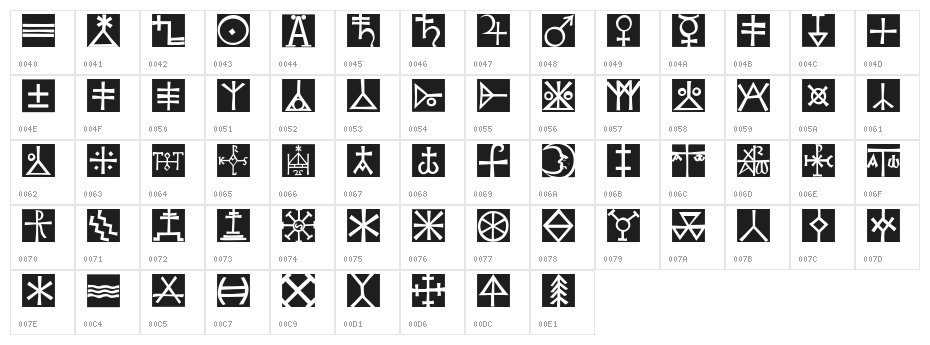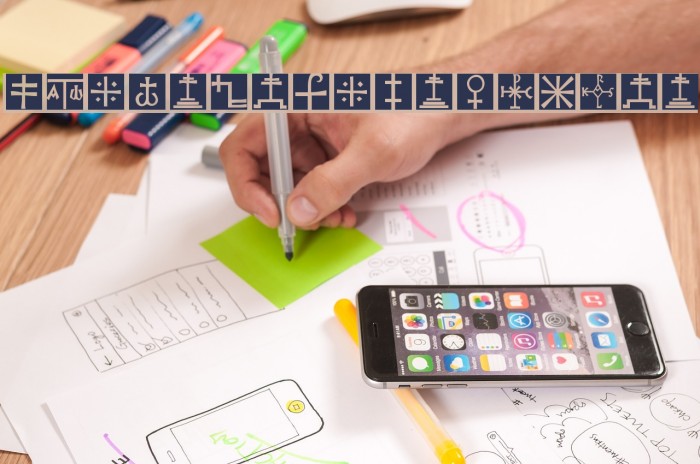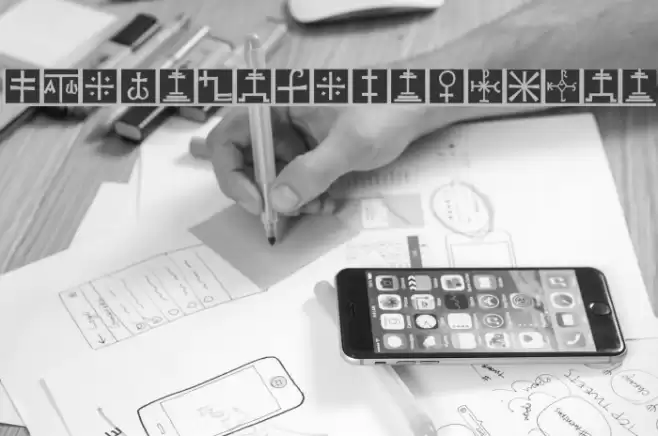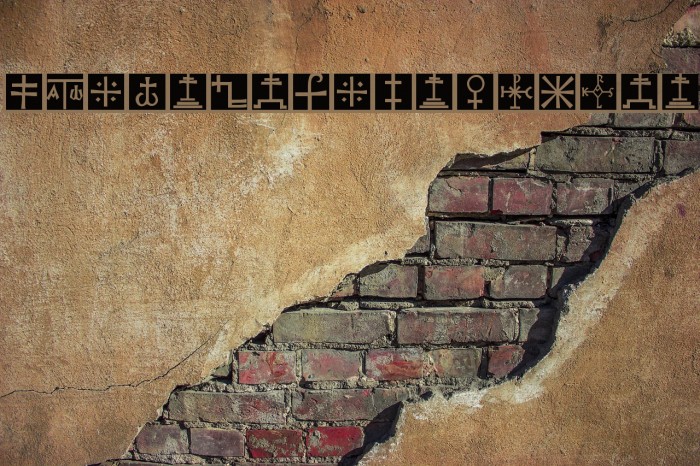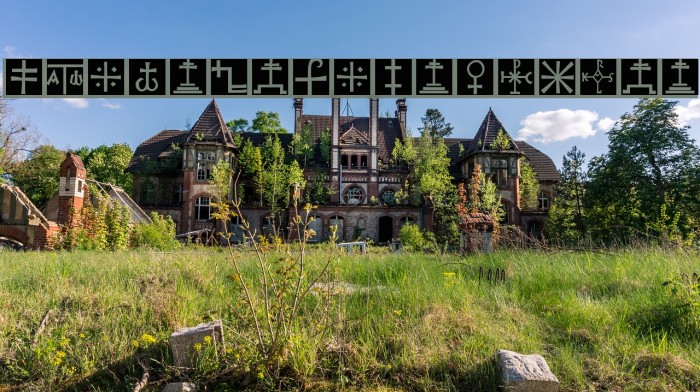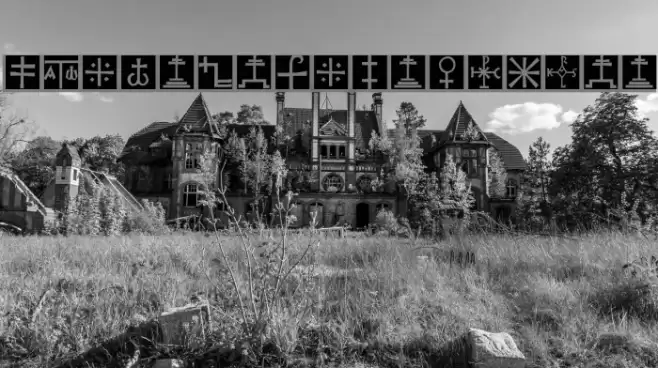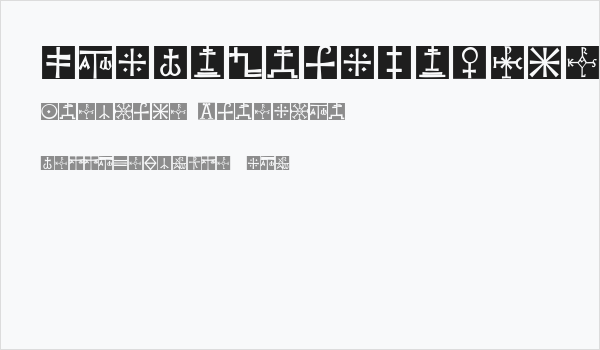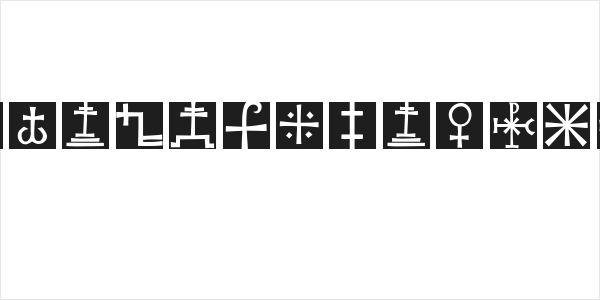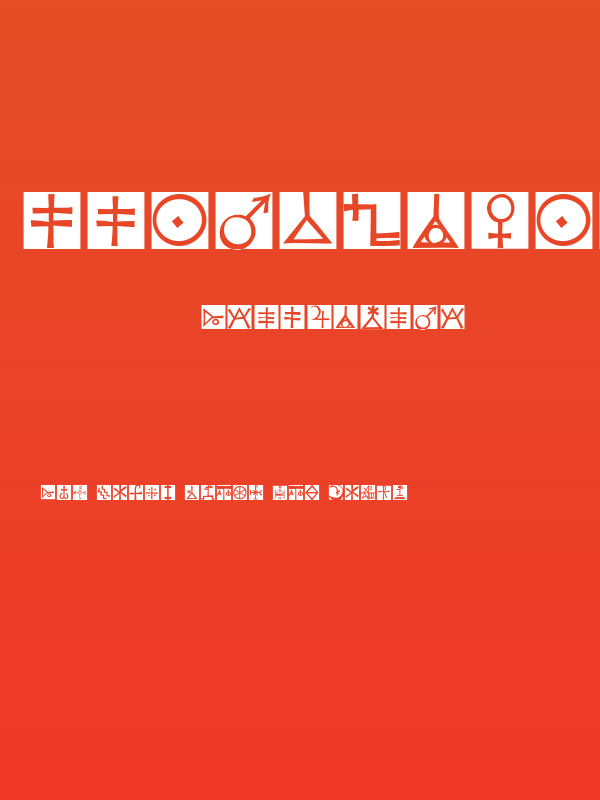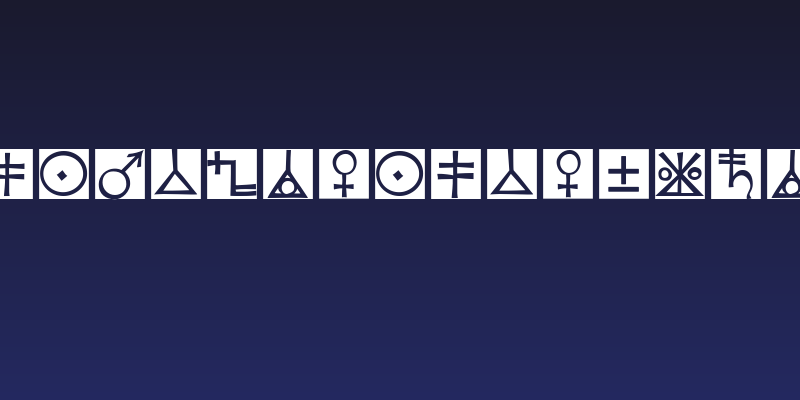
KochsBricksInvers Font
This font features a collection of unique, abstract symbols and shapes that resemble ancient or mystical iconography. Each character is distinct, with a bold, geometric design that stands out against a solid background. The symbols include a variety of lines, circles, and intersecting shapes, creating a mysterious and enigmatic aesthetic. The font's style is highly decorative, making it suitable for projects that require a touch of the unusual or the arcane. Its intricate designs suggest a theme of ancient scripts or coded messages, perfect for creative and thematic uses.
| Use Case | Logos, Posters, Creative Art |
| Proposed Projects | Ideal for fantasy-themed designs, game interfaces, mystical or ancient-themed posters, and creative art projects. |